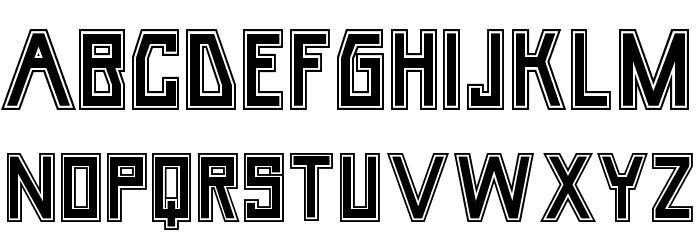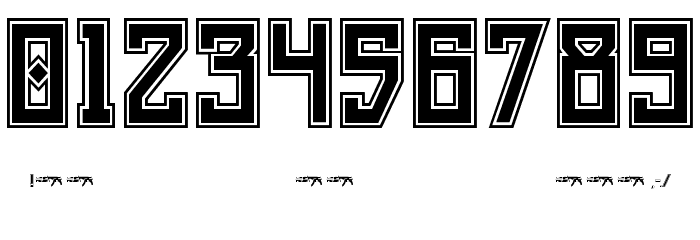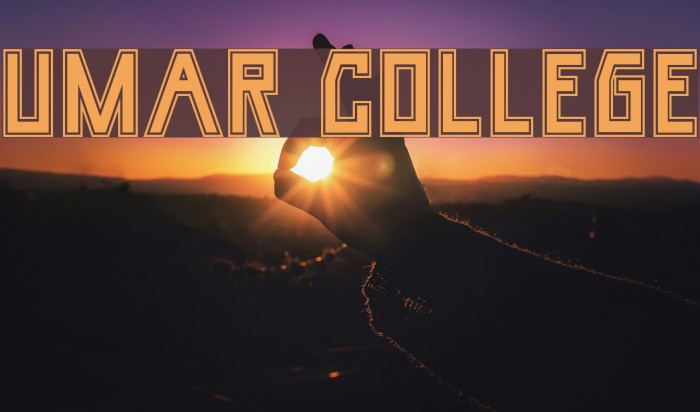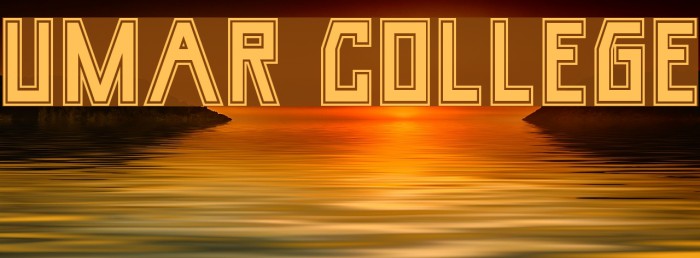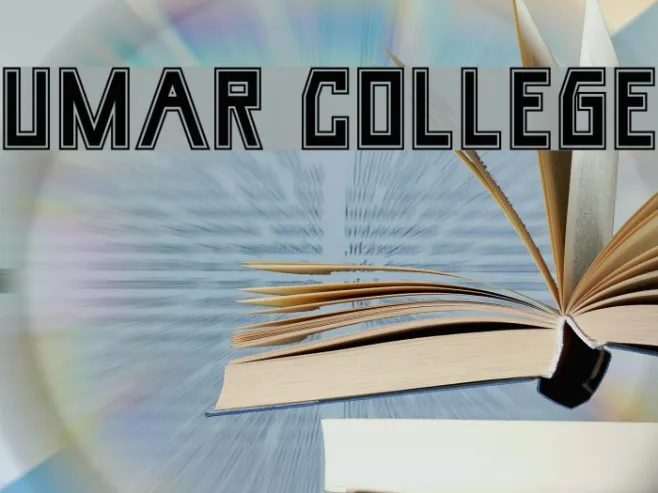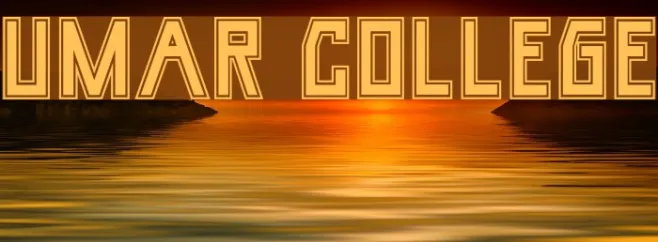
Umar College Font
This font features a bold, geometric style with a strong emphasis on angular shapes and sharp edges. The uppercase letters are designed with a consistent width, creating a uniform appearance across the alphabet. The characters have a double-line effect, adding depth and a three-dimensional look. The numbers follow the same design principles, maintaining the geometric and bold characteristics. The font's unique style makes it stand out, with a modern and slightly futuristic feel, ideal for projects that require a strong visual impact.
A bold, geometric font with angular shapes and a double-line effect.
- Proposed Projects: Ideal for sports branding, college-themed designs, posters, and merchandise that require a bold and impactful typeface.